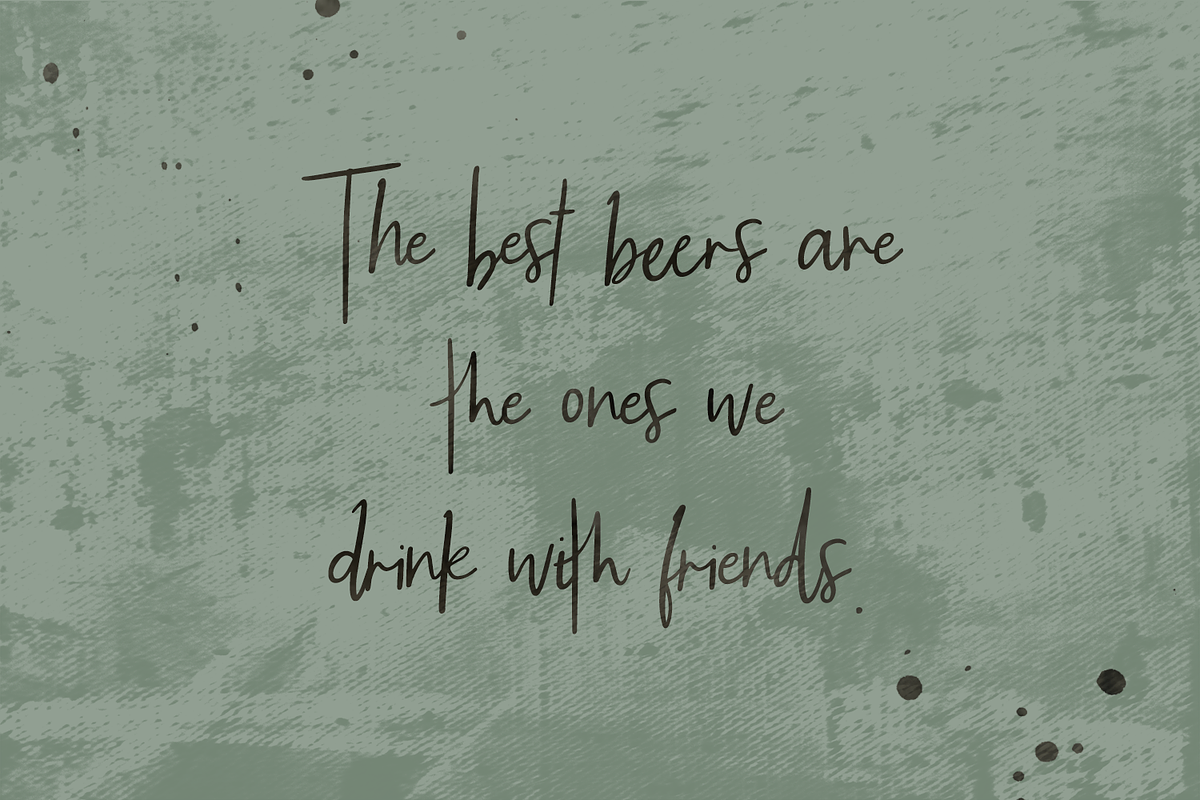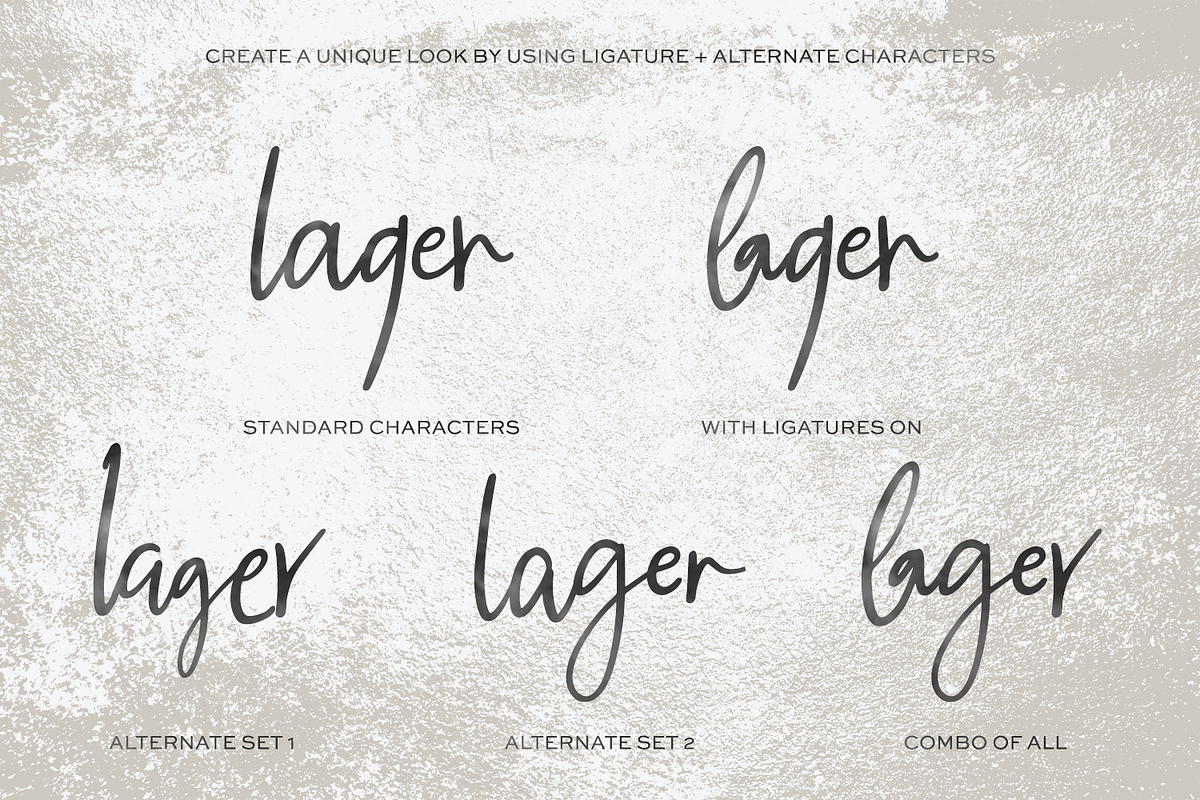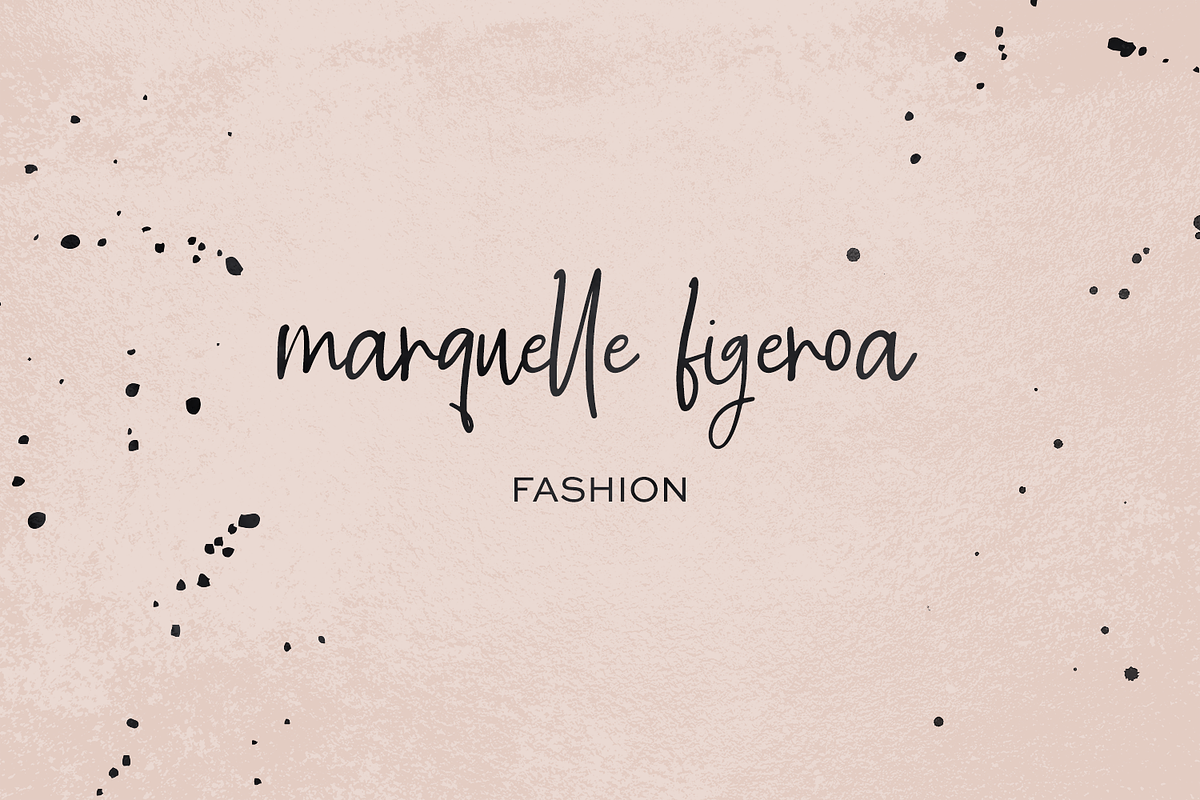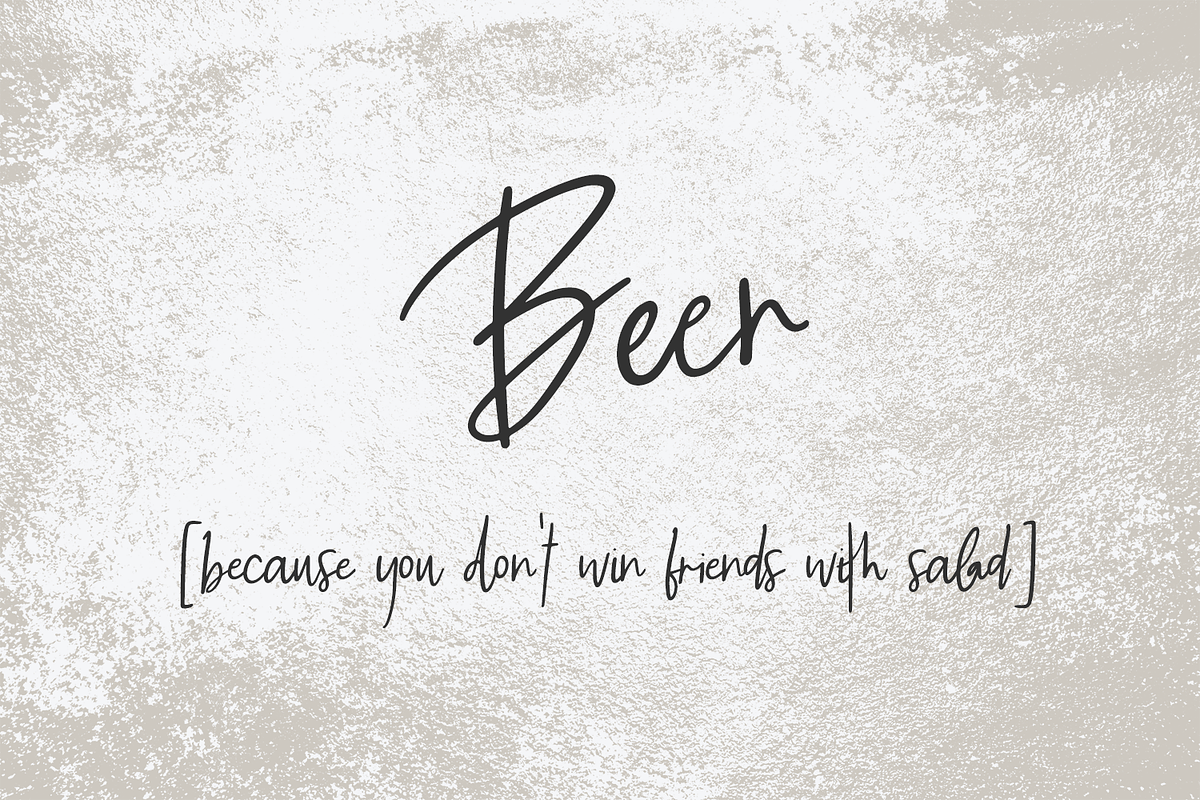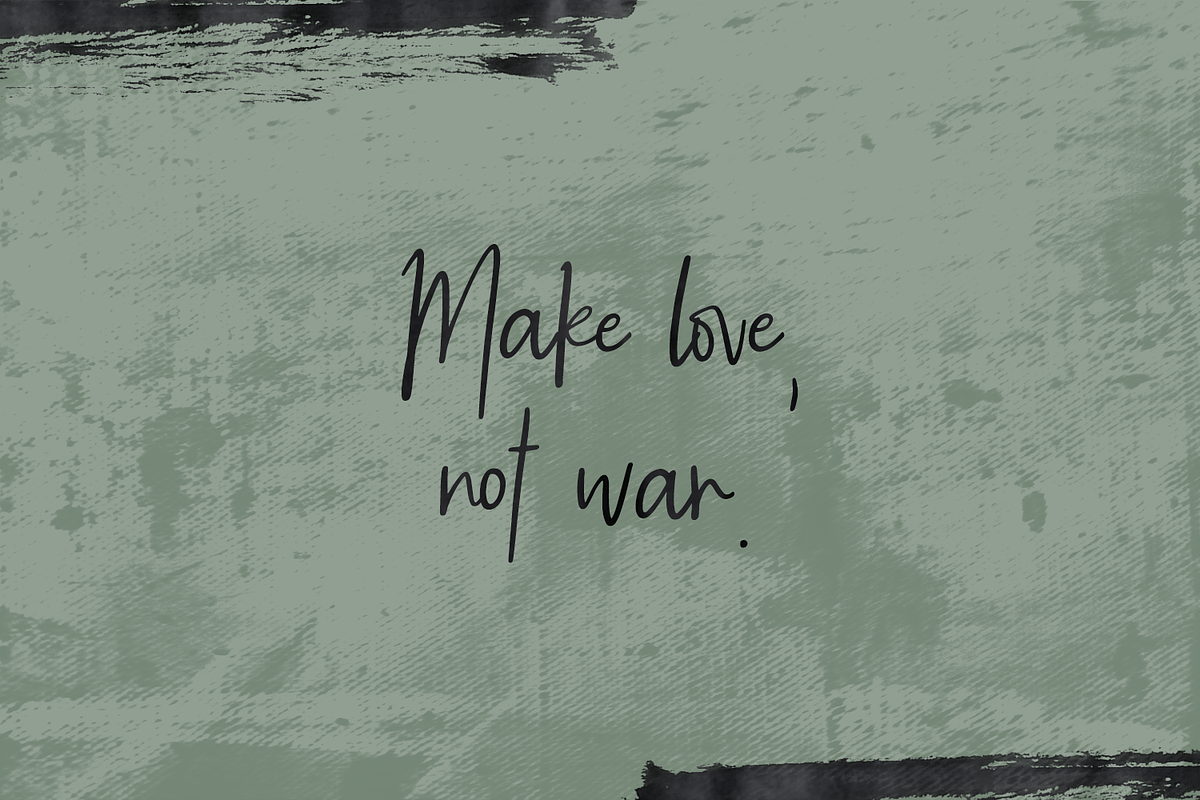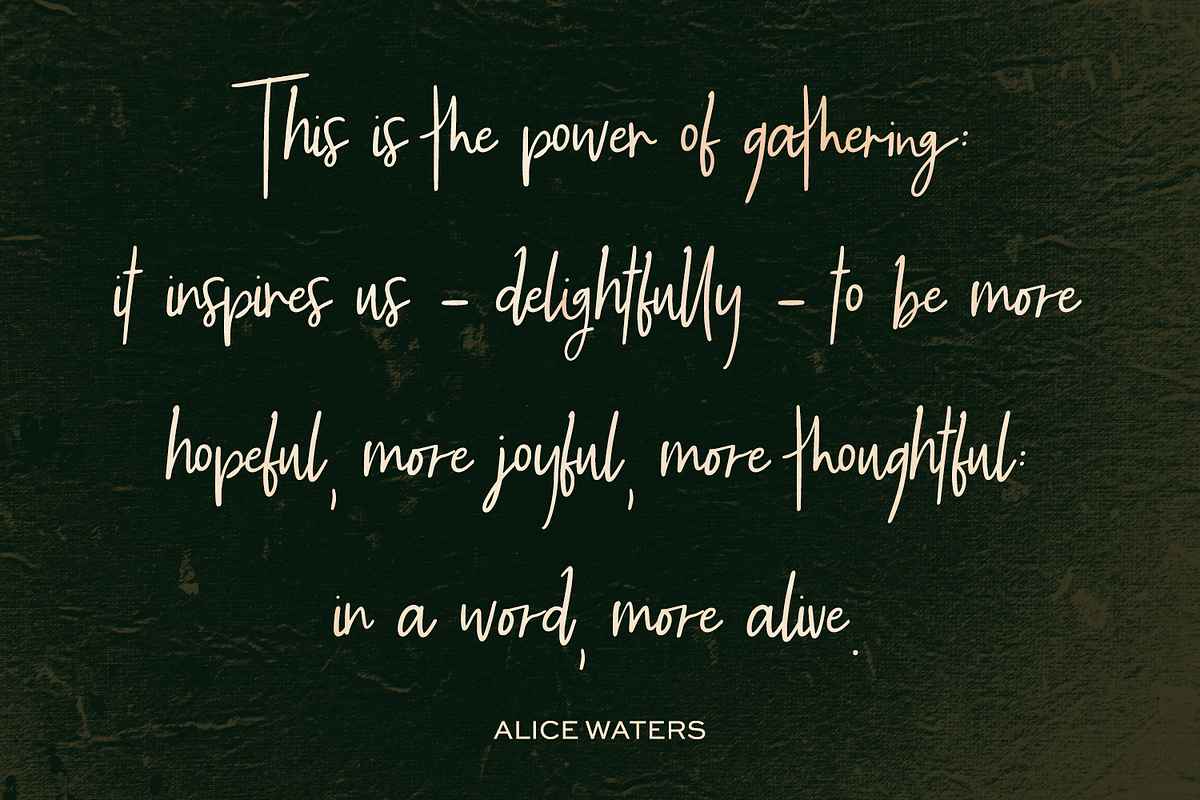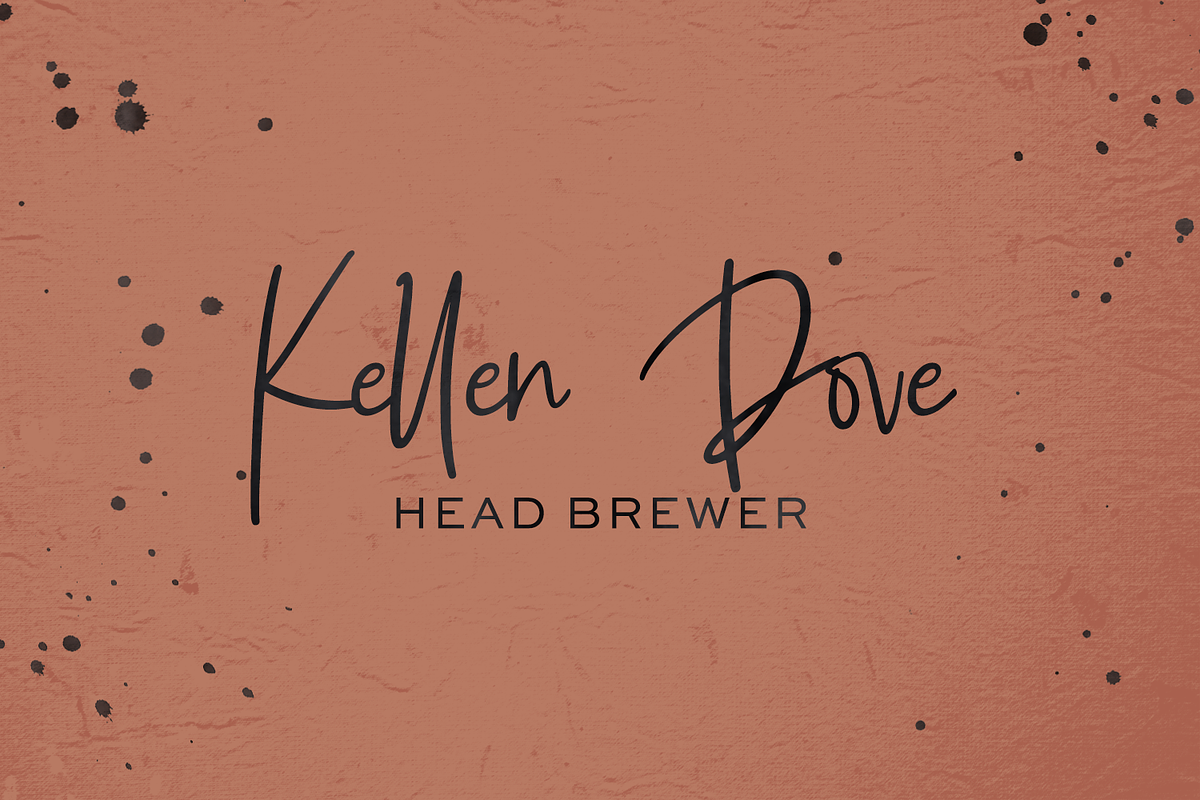
Brauhaus Signature Font
Brauhaus Script is a signature style script. Brauhaus mimics the imperfect flow of handwriting, and is full of alternates and ligatures that enhance the handwritten look! While Brauhaus takes on a more masculine feel, it would also be a great fit for slightly feminine projects that need an edgy aesthetic.
Brauhaus Script is an excellent fit for:
logo design + branding projects
print design, like magazines & flyers that need handwritten elements to draw attention
header elements + websites needing an edgy, moody touch
quote graphics for social media
Brauhaus Script includes:
full upper + lowercase characters
numbers + punctuation
Western European Language Support
52 lowercase letter alternates